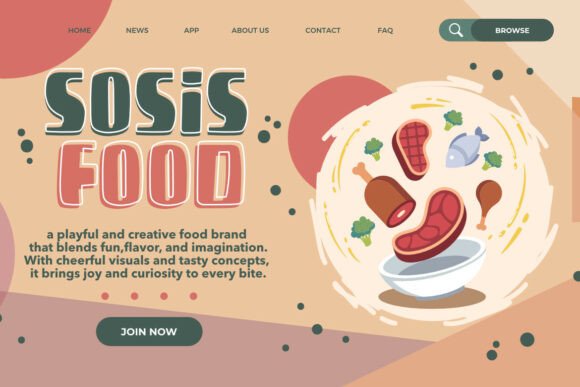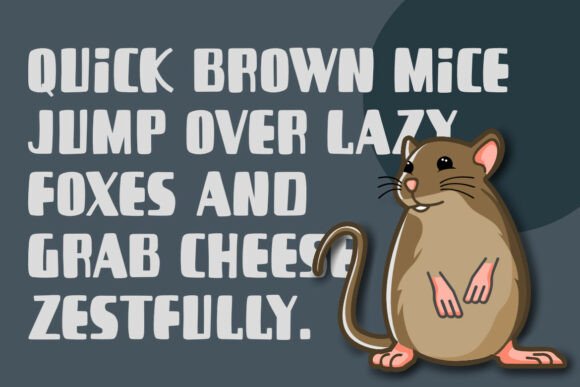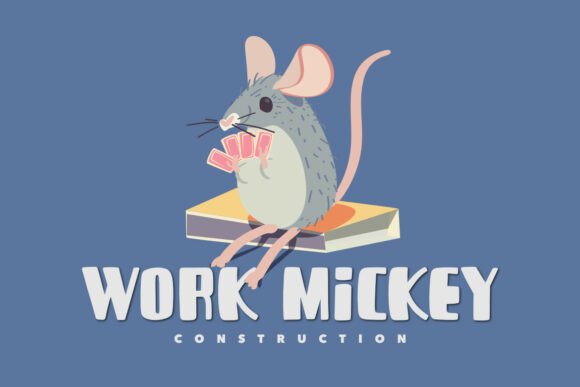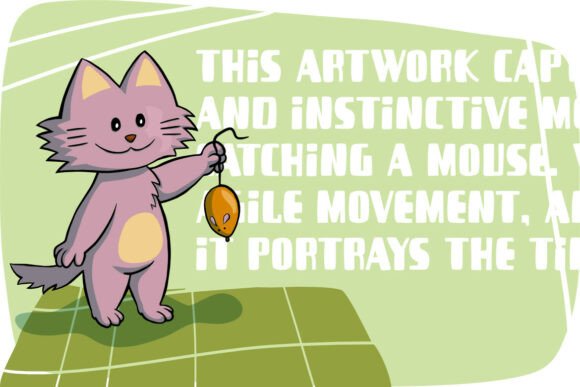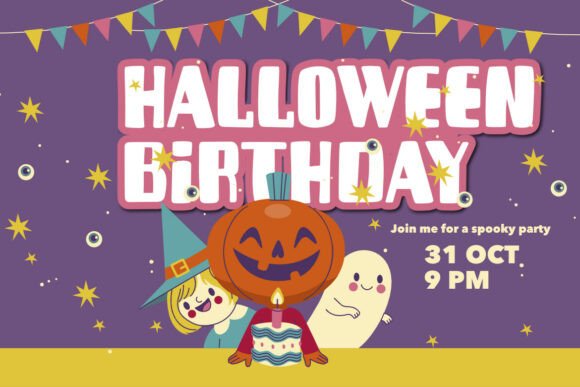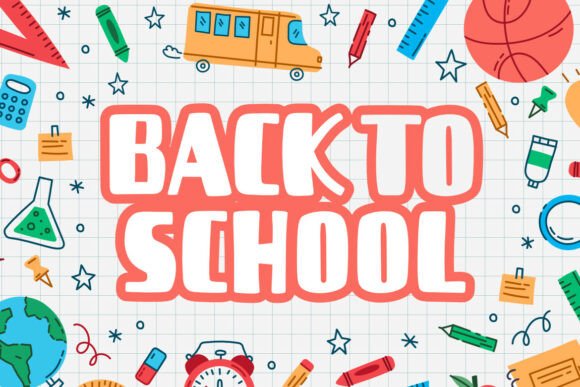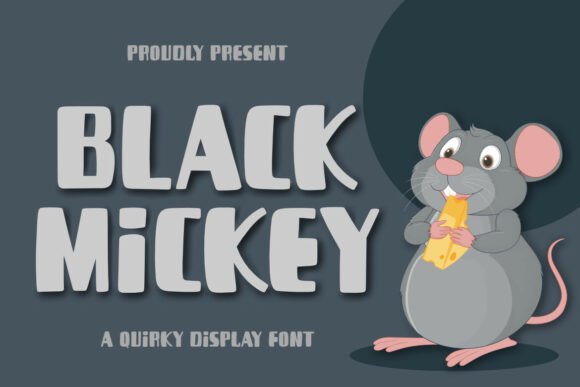
Black Mickey Font: A Quirky Typeface for Playful Designs
Are you looking for a font that captures the essence of fun storytelling and cartoon design? Look no further than Black Mickey, a quirky font that embodies the cheerful and playful spirit of childhood imagination. With its rounded edges, bouncy curves, and friendly charm, this typeface is perfect for projects that need a dose of happiness and humor.
The Personality of Black Mickey
Black Mickey is more than just a font – it’s a personality. Every letter feels alive, mimicking the whimsical energy of animated characters and the cozy world of childhood imagination. The font’s bold and approachable design brings warmth and charm to any creative scene, making it ideal for playful branding, food packaging, children’s books, or any design that celebrates fun and positivity.
So, what makes Black Mickey so special? Here are some of its key design characteristics:
- Rounded Edges: Black Mickey’s rounded edges give it a soft and friendly feel, perfect for designs that need a touch of warmth and approachability.
- Bouncy Curves: The font’s bouncy curves add a playful and energetic feel, making it perfect for designs that need to capture the imagination.
- Bold and Approachable: Black Mickey is both bold and approachable, making it perfect for designs that need to make a statement without being too overwhelming.
Use Cases for Black Mickey
Black Mickey is a versatile font that can be used in a variety of design projects, including:
- Playful Branding: Black Mickey is perfect for brands that want to convey a sense of fun and playfulness. Use it for logos, business cards, or any other branding material that needs to make a statement.
- Food Packaging: Add a touch of whimsy to your food packaging with Black Mickey. The font’s playful design is perfect for packaging that needs to stand out on store shelves.
- Children’s Books: Black Mickey is a natural fit for children’s books, with its friendly and approachable design making it perfect for storybooks, picture books, or any other type of children’s literature.
- Fun and Positivity: Black Mickey is perfect for any design project that celebrates fun and positivity. Use it for posters, flyers, or any other design that needs to convey a sense of joy and enthusiasm.
Why Choose Black Mickey?
So, why choose Black Mickey for your design project? Here are just a few reasons:
- Unique Personality: Black Mickey has a unique personality that sets it apart from other fonts. Its playful design and friendly charm make it perfect for designs that need to capture the imagination.
- Expressive and Memorable: Black Mickey turns simple words into a delightful visual experience that’s both expressive and memorable. Use it to create designs that will leave a lasting impression.
- Easy to Read: Despite its playful design, Black Mickey is easy to read, making it perfect for designs that need to convey a message quickly and clearly.
Black Mickey is a quirky font that’s perfect for designers and crafters who want to add a touch of fun and playfulness to their designs. With its rounded edges, bouncy curves, and friendly charm, this typeface radiates joy and personality. Whether you’re working on a playful branding project, food packaging, or a children’s book, Black Mickey is the perfect choice. So why not give it a try and see how it can bring your designs to life?